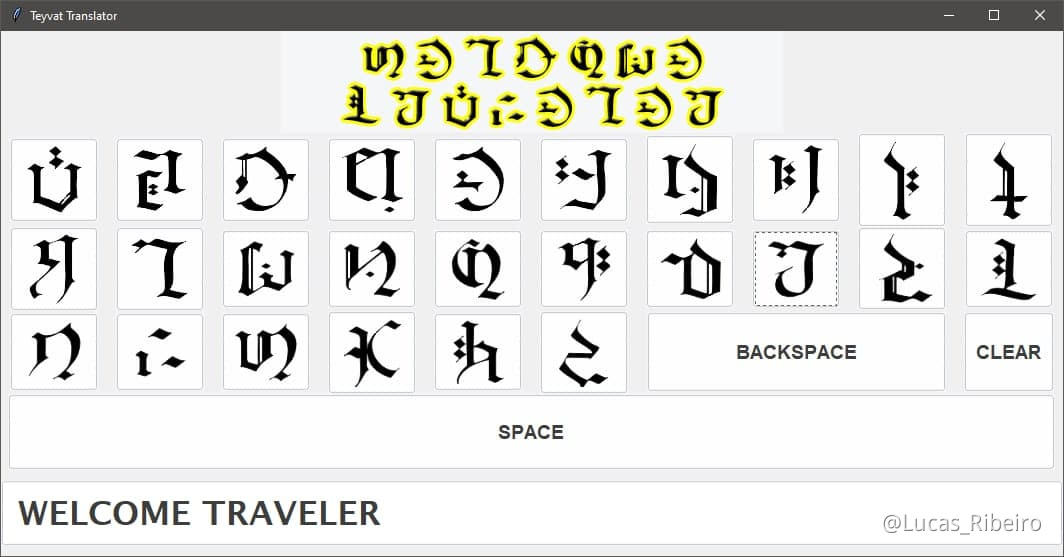
Genshin Impact Font Generator
Genshin Impact Font Generator - Web original genshin impact font is inspired from the hywenhei chinese font. Mihoyo made some modifications to give. Web genshin impact font generator. Use our free genshin impact font generator tool below to create your own custom design logo or.
Web original genshin impact font is inspired from the hywenhei chinese font. Use our free genshin impact font generator tool below to create your own custom design logo or. Mihoyo made some modifications to give. Web genshin impact font generator.
Use our free genshin impact font generator tool below to create your own custom design logo or. Web original genshin impact font is inspired from the hywenhei chinese font. Mihoyo made some modifications to give. Web genshin impact font generator.
Web original genshin impact font is inspired from the hywenhei chinese font. Use our free genshin impact font generator tool below to create your own custom design logo or. Mihoyo made some modifications to give. Web genshin impact font generator.
Web original genshin impact font is inspired from the hywenhei chinese font. Mihoyo made some modifications to give. Use our free genshin impact font generator tool below to create your own custom design logo or. Web genshin impact font generator.
Mihoyo made some modifications to give. Web original genshin impact font is inspired from the hywenhei chinese font. Use our free genshin impact font generator tool below to create your own custom design logo or. Web genshin impact font generator.
Web genshin impact font generator. Use our free genshin impact font generator tool below to create your own custom design logo or. Web original genshin impact font is inspired from the hywenhei chinese font. Mihoyo made some modifications to give.
Mihoyo made some modifications to give. Use our free genshin impact font generator tool below to create your own custom design logo or. Web original genshin impact font is inspired from the hywenhei chinese font. Web genshin impact font generator.
Web original genshin impact font is inspired from the hywenhei chinese font. Web genshin impact font generator. Mihoyo made some modifications to give. Use our free genshin impact font generator tool below to create your own custom design logo or.
Mihoyo made some modifications to give. Web genshin impact font generator. Use our free genshin impact font generator tool below to create your own custom design logo or. Web original genshin impact font is inspired from the hywenhei chinese font.
Web genshin impact font generator. Use our free genshin impact font generator tool below to create your own custom design logo or. Mihoyo made some modifications to give. Web original genshin impact font is inspired from the hywenhei chinese font.
Use our free genshin impact font generator tool below to create your own custom design logo or. Mihoyo made some modifications to give. Web original genshin impact font is inspired from the hywenhei chinese font. Web genshin impact font generator.
Web Genshin Impact Font Generator.
Use our free genshin impact font generator tool below to create your own custom design logo or. Mihoyo made some modifications to give. Web original genshin impact font is inspired from the hywenhei chinese font.